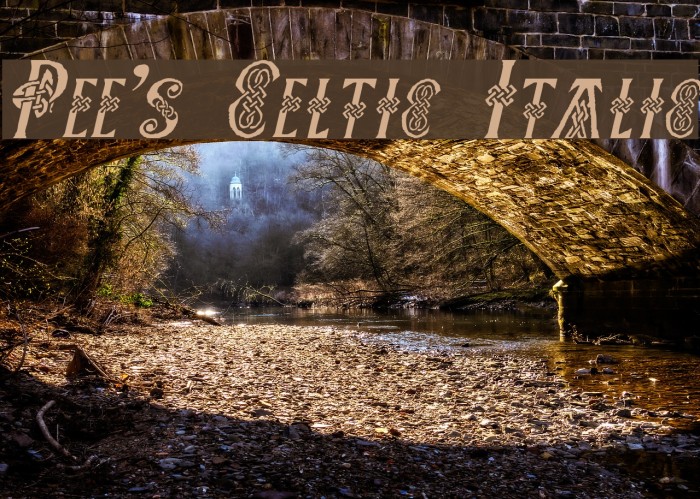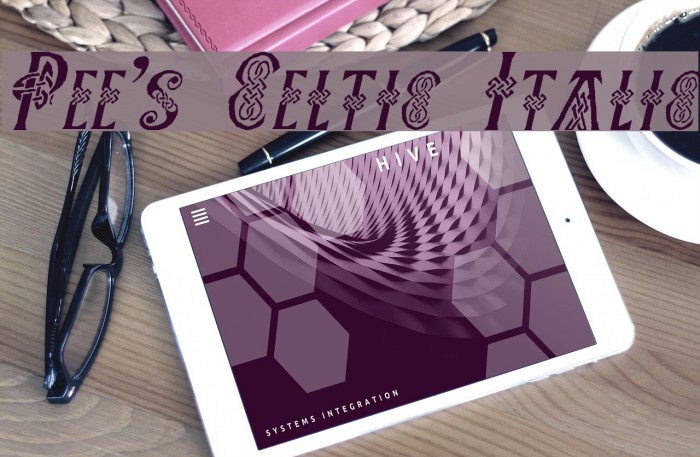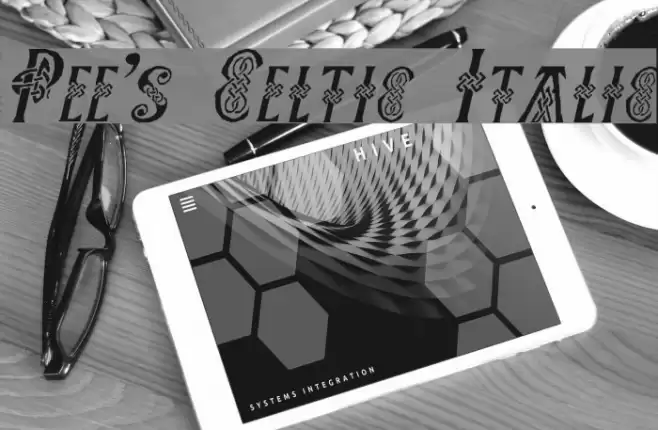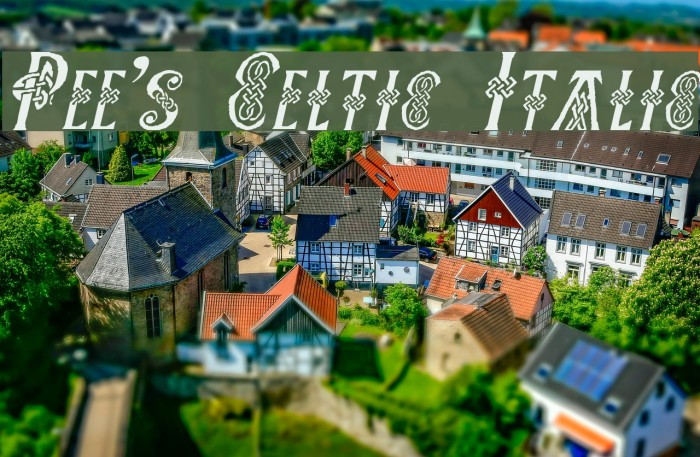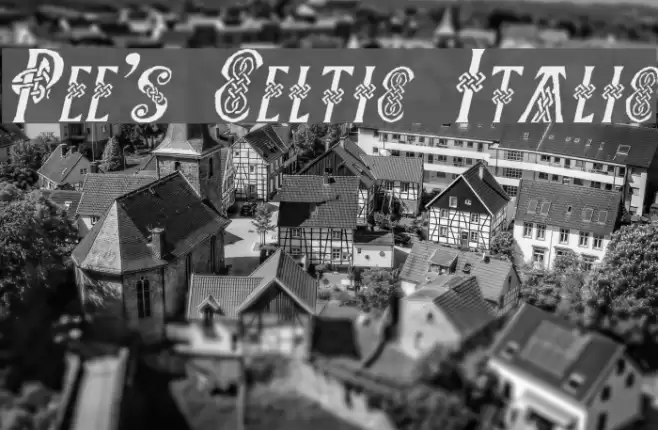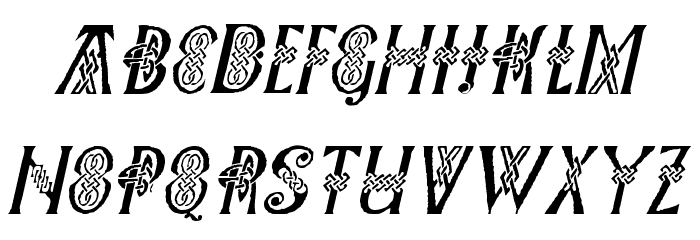
Pee's Celtic Italic Font
Pee's Celtic Italic Description
This font features a distinct Celtic-inspired design, characterized by intricate knot patterns integrated into each letterform. The italic style adds a dynamic and flowing quality, enhancing its decorative appeal. The uppercase letters are particularly elaborate, with each character showcasing unique interwoven elements that reflect traditional Celtic art. The lowercase letters maintain a similar style but with slightly less complexity, ensuring readability. Numerals and special characters are designed to match the ornate style, making this font suitable for thematic and artistic projects.
| Use Case | Logos, Posters, Artistic Projects |
| Proposed Projects | Ideal for use in Celtic-themed designs, fantasy book covers, historical event posters, and artistic logos. |